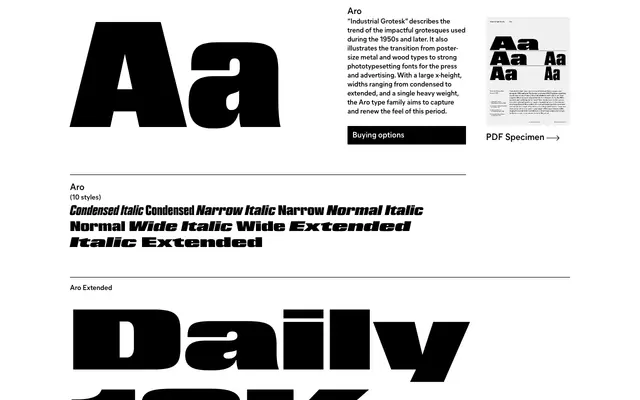
A single-weight industrial grotesque offered across five widths from Condensed to Extended, modelled on the heavy display types of 1950s press and advertising.
Aro takes its cue from the 'Industrial Grotesk' tradition, the impactful heavy grotesques that bridged metal and wood poster types with phototypesetting for press and advertising. It comes in one weight with a large x-height, spanning five widths from Condensed to Extended, each with a matching italic, giving ten styles in total. Alternate glyphs for the ampersand, M and the g and y are available across all styles via OpenType features.
Explicitly described as an 'Industrial Grotesk', drawing on the heavy, high-contrast grotesques of the 1950s used in poster and phototypesetting contexts. A single heavy weight across five widths places it firmly in the display grotesque tradition.